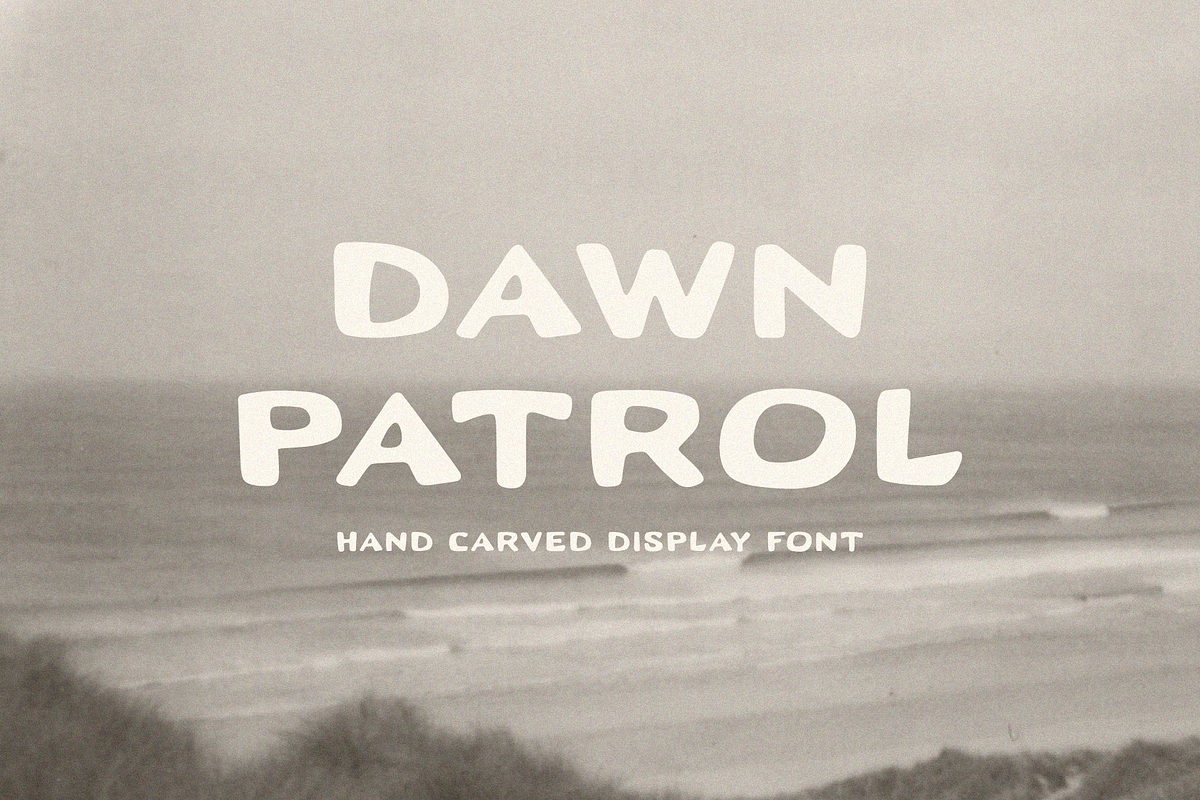
Dawn Patrol is a hand-cut display font inspired by early morning surf checks, designed by Lauren Kilbane in sunny South Florida, USA. This font captures the essence of the surf culture with its bold and playful character, making it ideal for various design applications.
• Design Inspiration: Reflects the laid-back and adventurous spirit of surf culture, embodying the aesthetics of early morning surf sessions.
• Character Set: Includes uppercase letters only, along with numbers, currency symbols, and standard punctuation.
Ideal Uses:
Dawn Patrol is well-suited for a variety of creative projects, including:
• Advertisements
• Album covers
• Apparel designs
• Cards and invitations
• Flyers
• Logos
• Menus
• Merchandise
• Packaging
• Signage
• Web design
Incorporating Dawn Patrol into your design projects can add a unique, surf-inspired aesthetic that stands out.